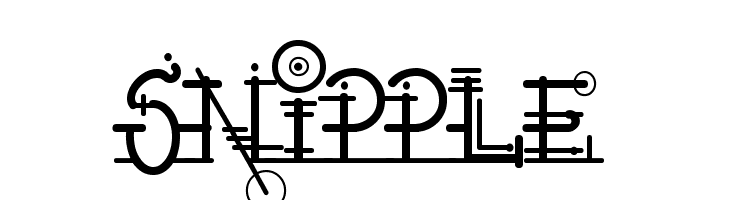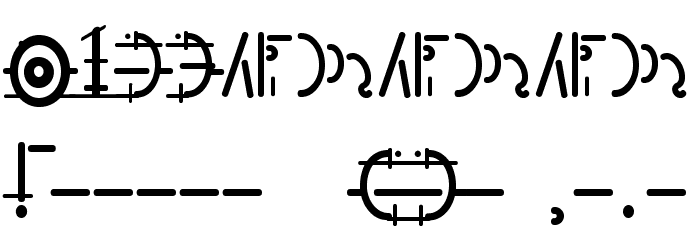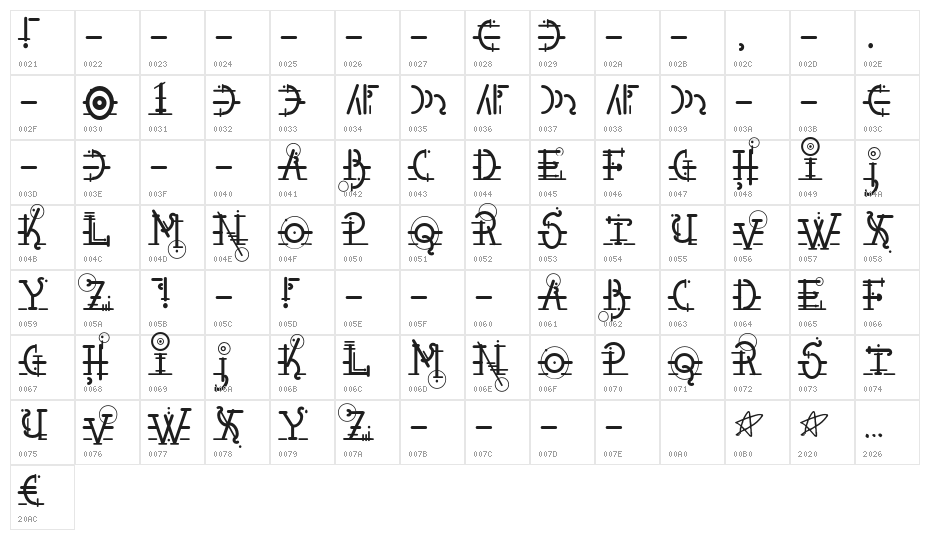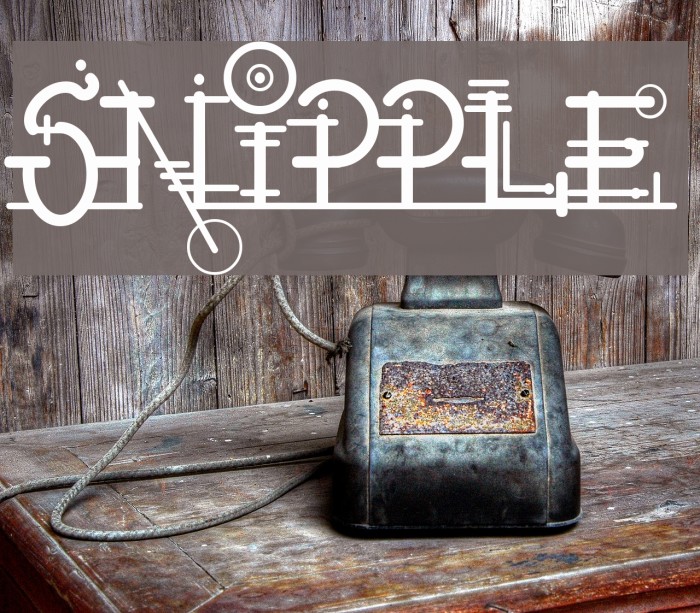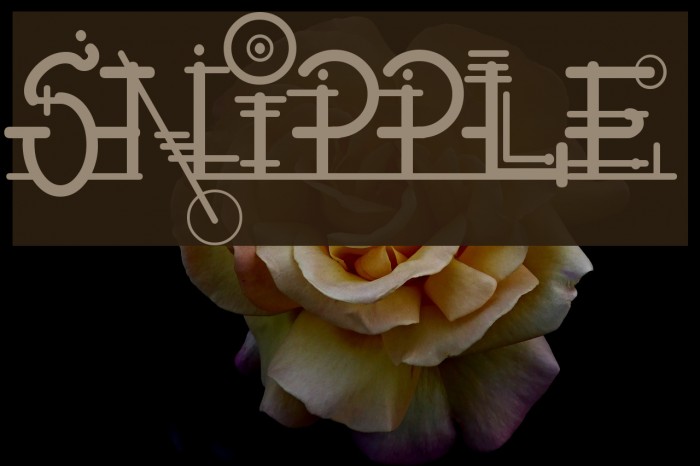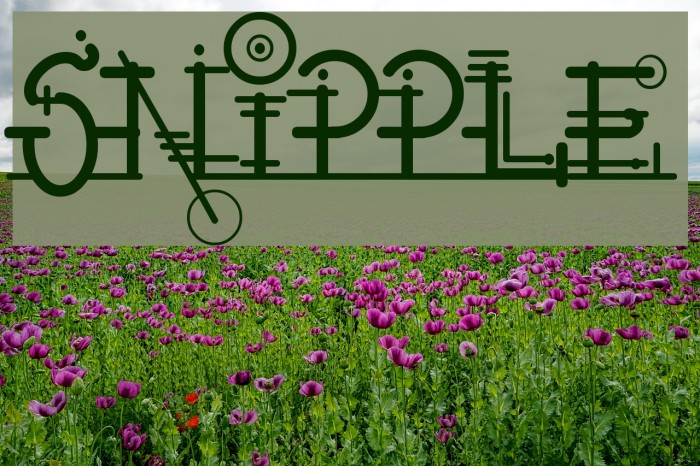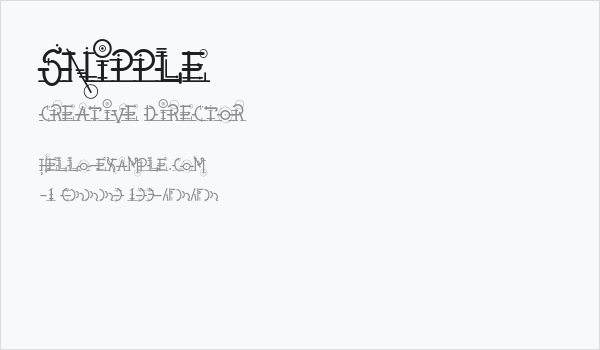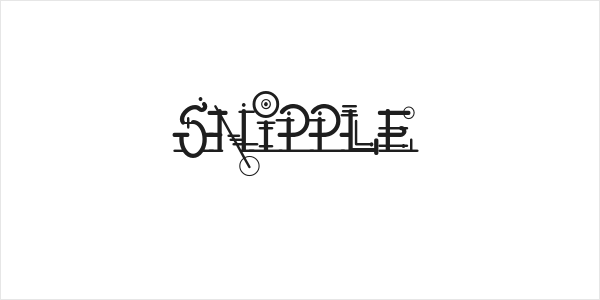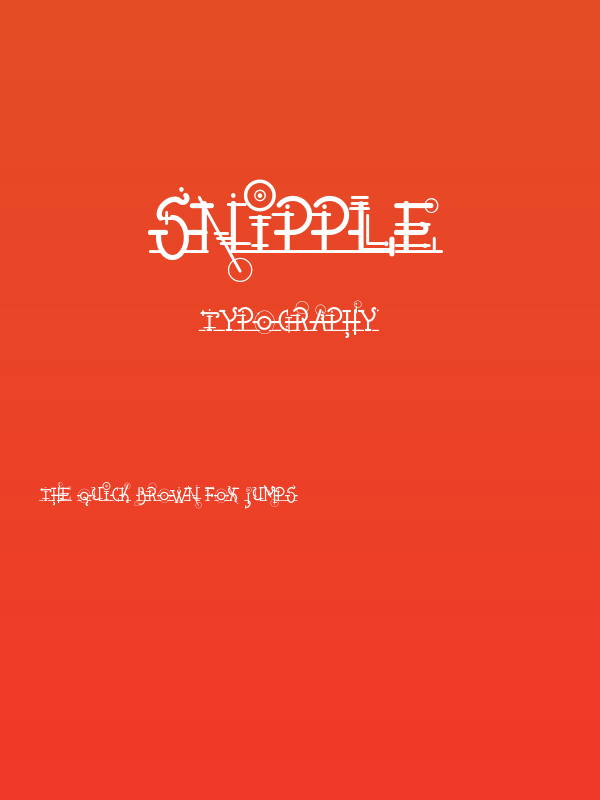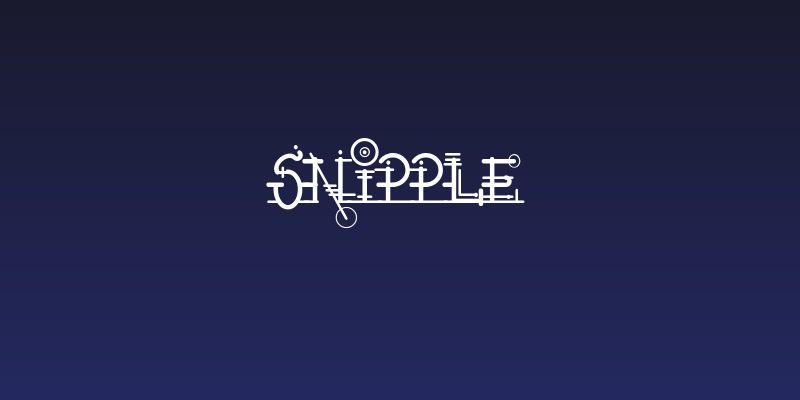
Snipple Font
Snipple Description
This font is a highly decorative and intricate design, featuring a unique blend of geometric shapes and lines that intersect with the characters. Each letter is adorned with circles, dots, and lines, creating a complex and artistic appearance. The uppercase and lowercase letters maintain a consistent style, with additional embellishments that give the font a futuristic and abstract feel. The numbers and special characters follow the same design principles, ensuring a cohesive look throughout. This font is not suited for body text due to its complexity but makes a bold statement in headlines or artistic projects.
| Overall Style | Futuristic, Abstract |
| Use Case | Headlines, Logos, Artistic projects |
| Proposed Projects | Ideal for artistic projects, futuristic designs, posters, and unique branding. |